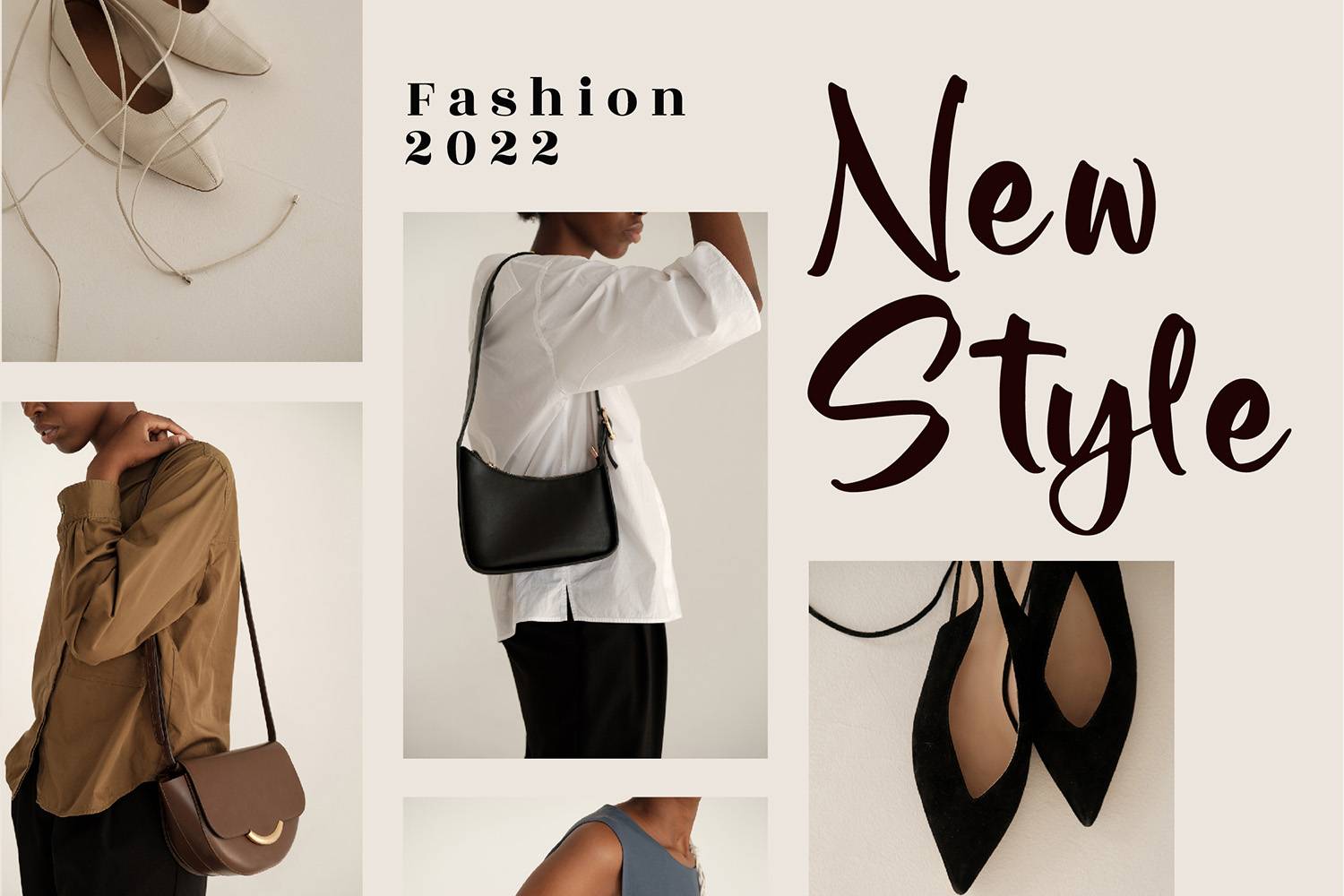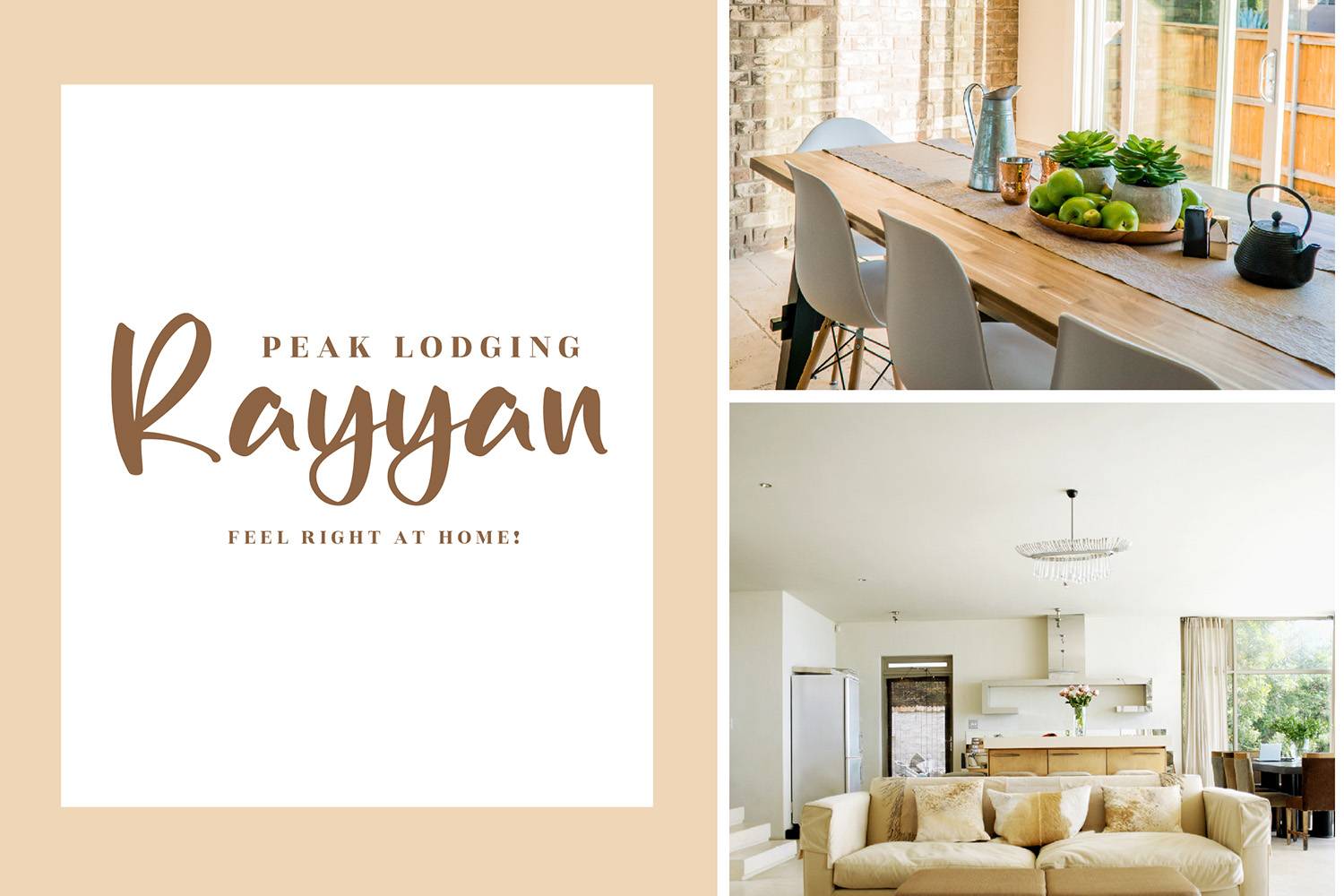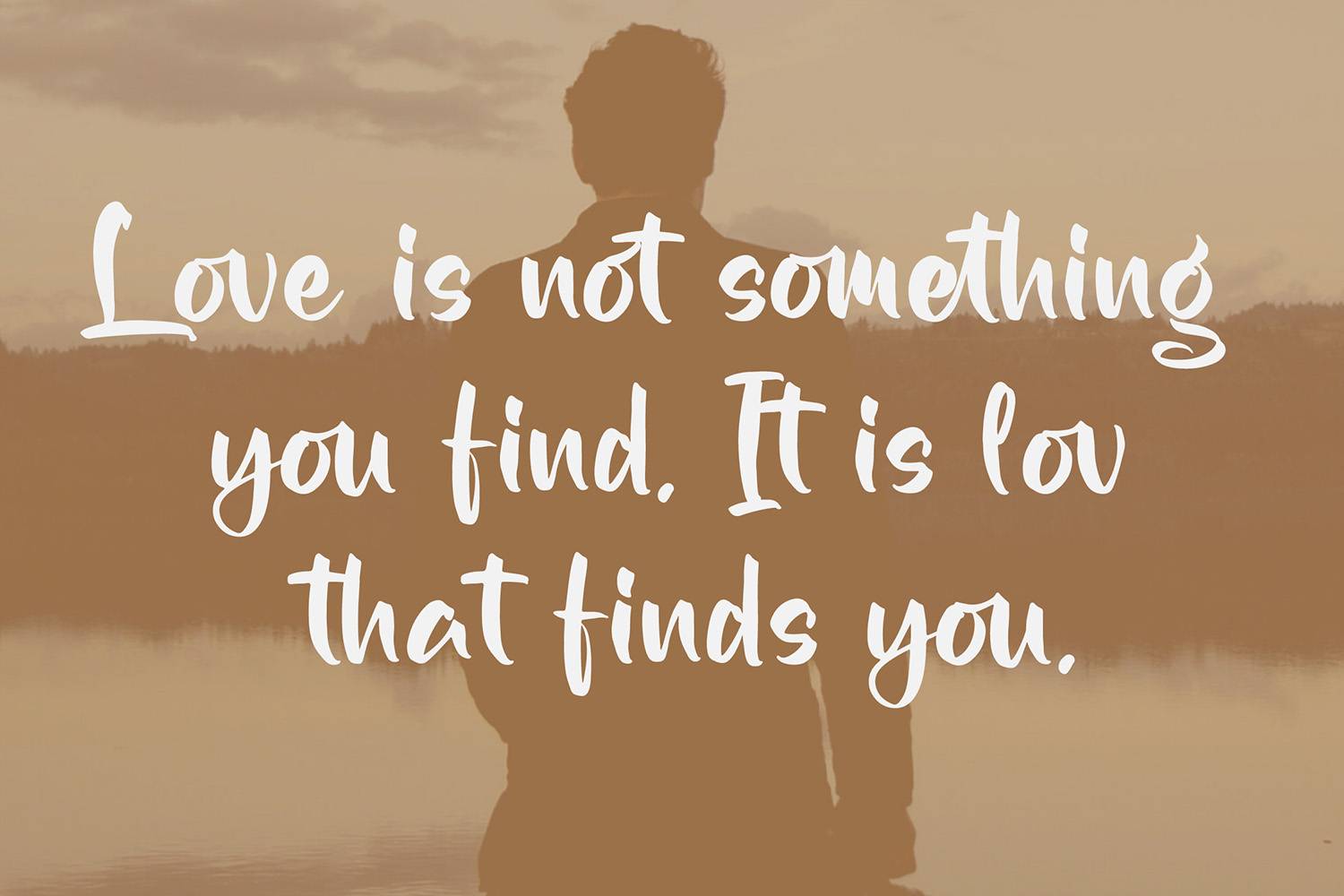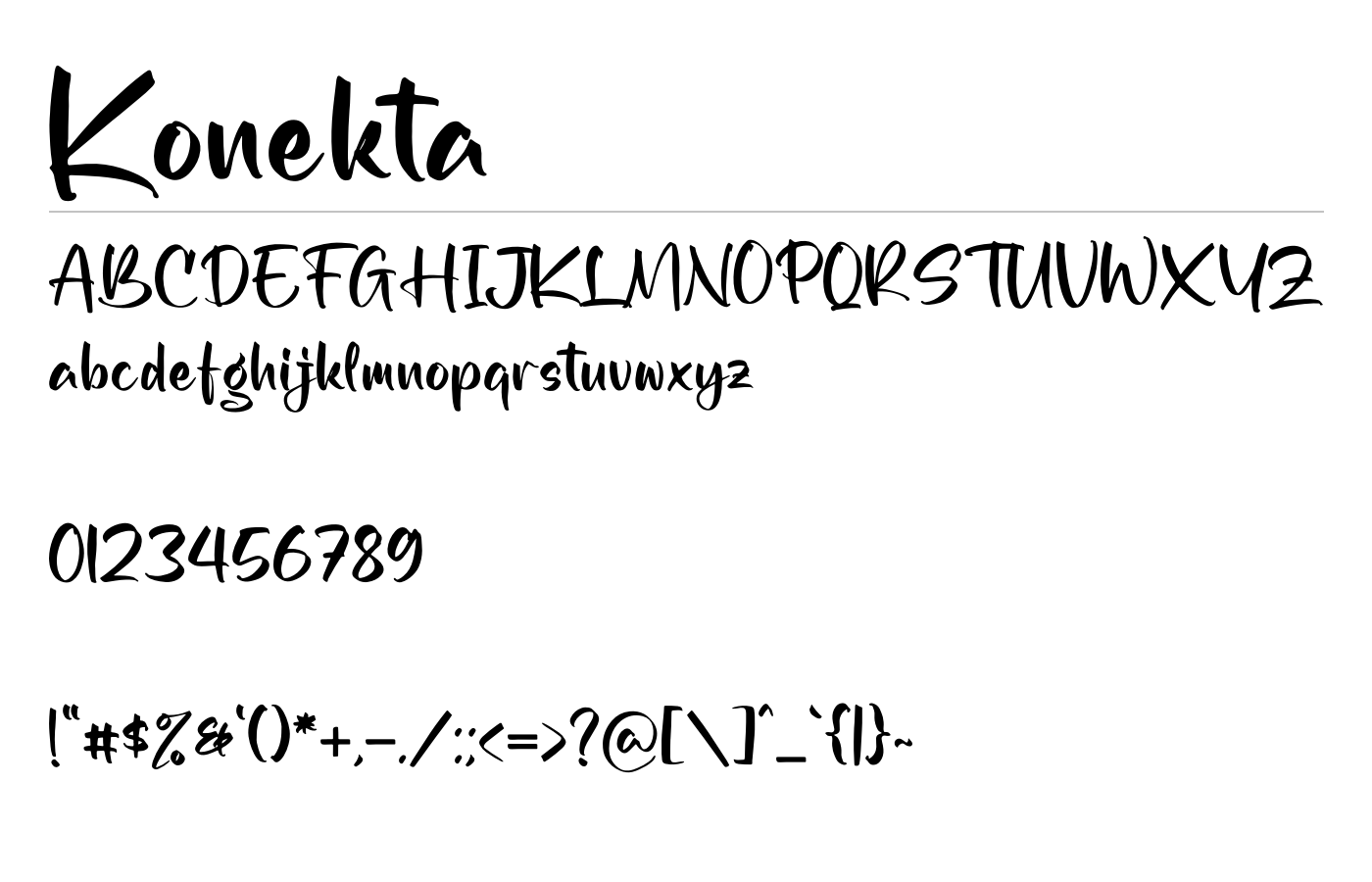
Konekta is a lively handwritten script font with a casual, brushstroke style that feels both approachable and energetic. Its medium weight and slightly condensed letterforms, combined with playful variations and smooth curves, make it ideal for creative projects, logos, and informal branding that seek a personal, friendly touch. This font works well in headlines and packaging where a warm, inviting atmosphere is desired.
Konekta Font
About Konekta Font